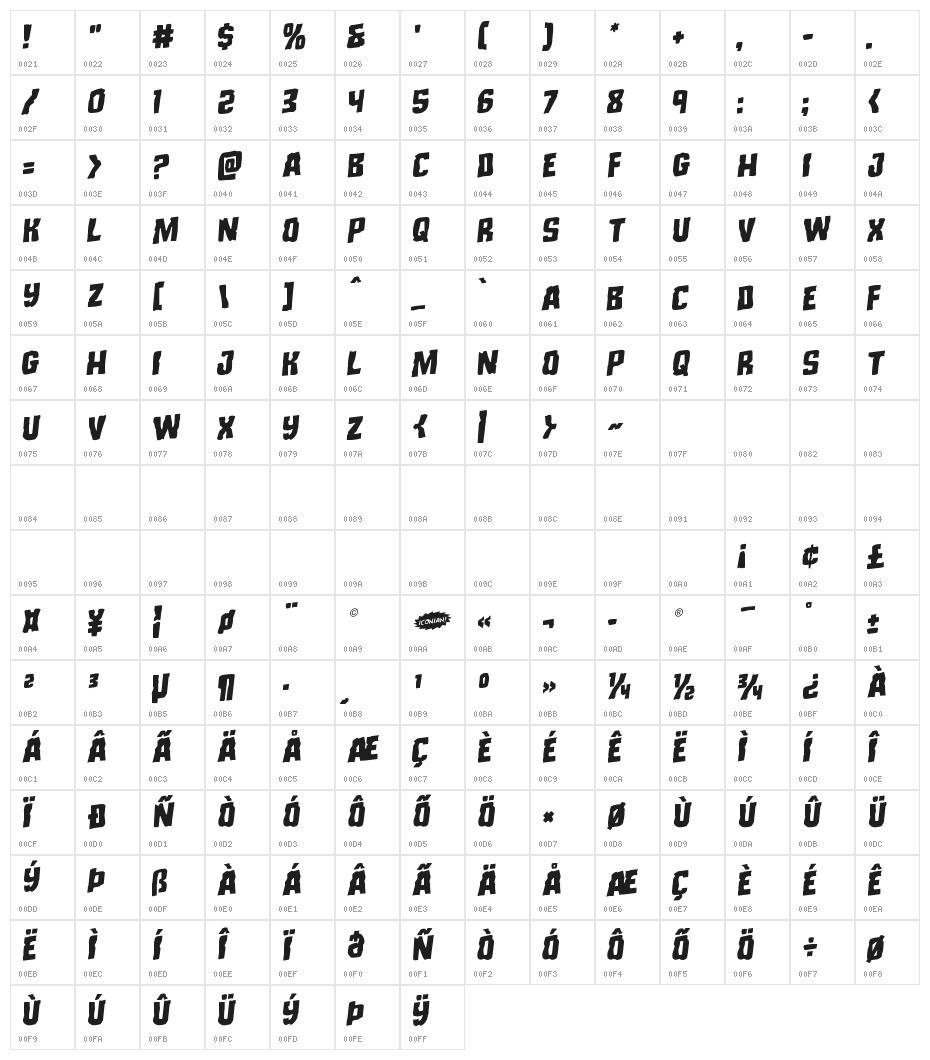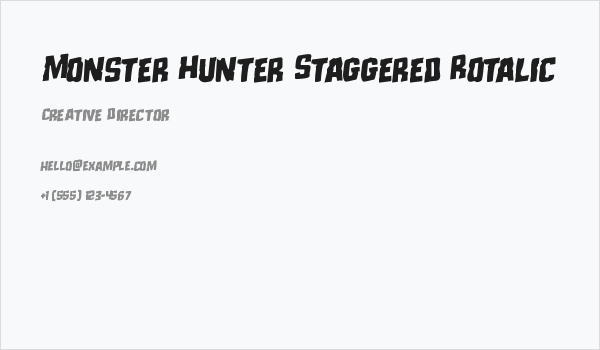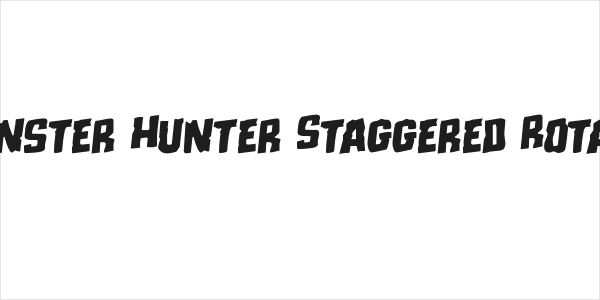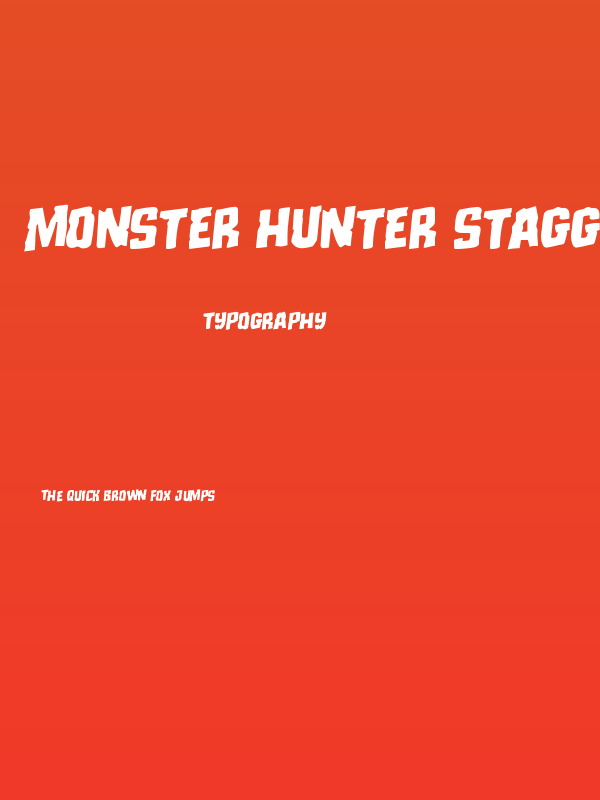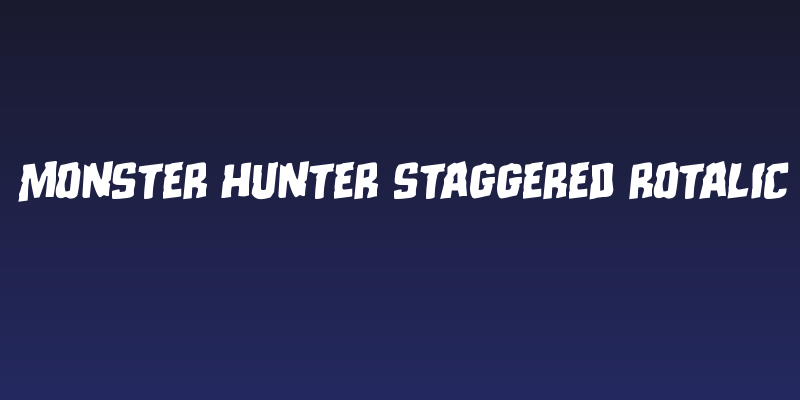
Monster Hunter Staggered Rotalic Font
Monster Hunter Staggered Rotalic Description
This font features a bold, staggered design with a dynamic and energetic appearance. The letters are slightly tilted, giving a sense of movement and urgency. The strokes are thick and uneven, adding a rugged and adventurous feel. The uppercase and lowercase letters maintain a consistent style, while the numbers and special characters complement the overall design. This font is ideal for projects that require a bold statement and a touch of excitement.
| Proposed Projects | Perfect for video game titles, action movie posters, and adventure-themed branding. |